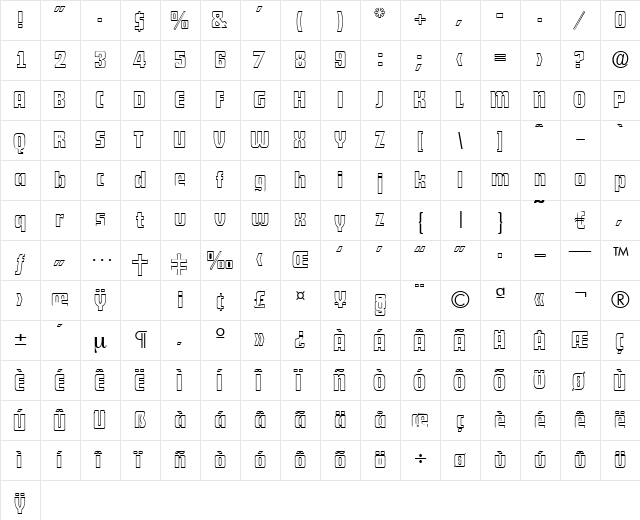
Dekodisplay-Open Regular
Design Context for Dekodisplay-Open Typeface
Dekodisplay-Open is built around its visual character rather than neutral utility — its distinctive forms are designed to make an impression at display sizes.
Font Pairing: Pair with a clean neutral sans-serif for body copy to let Dekodisplay-Open's character lead without overwhelming the composition.
Pro Tip: Use Dekodisplay-Open exclusively at display sizes — it was designed to be seen, not read at length. Let a neutral companion handle body copy.